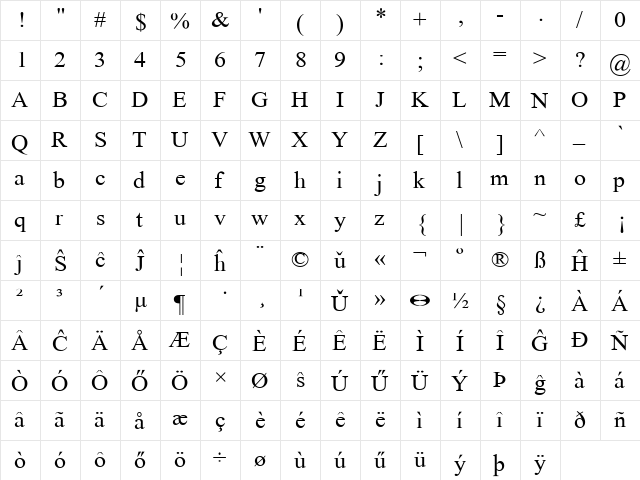
Tempo Esperanto Normala
Design Context for Tempo Esperanto Typeface
Tempo Esperanto takes a measured approach to typography — its balanced proportions and neutral character make it a reliable workhorse for both digital and print work.